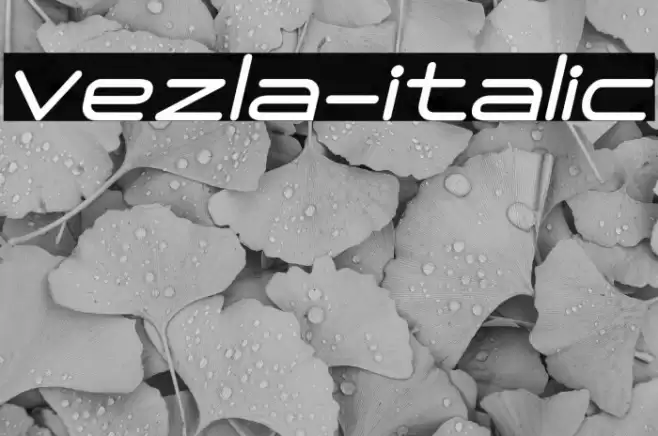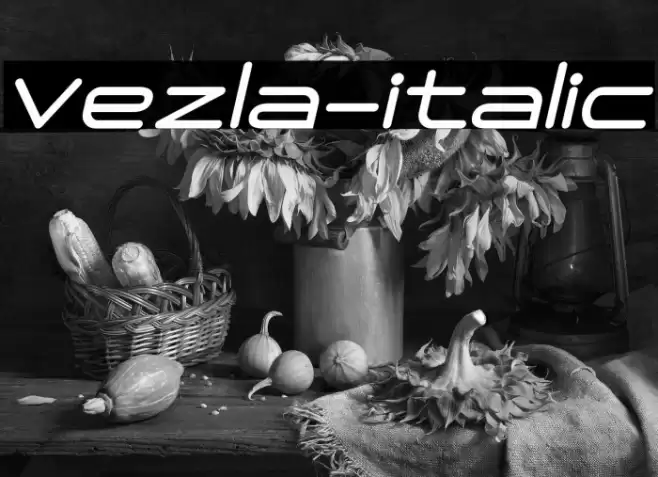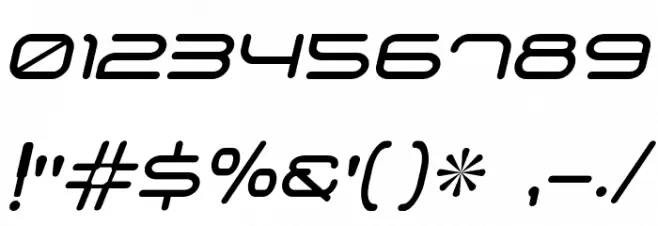
Vezla-italic Font
Vezla-italic Description
This font features a sleek and modern design with a futuristic appeal. The characters are slightly italicized, giving them a dynamic and forward-leaning appearance. Each letter is crafted with smooth, continuous lines that create a sense of motion and fluidity. The font maintains a consistent stroke width throughout, contributing to its clean and streamlined look. The rounded edges and absence of sharp angles add a touch of softness, making it versatile for various design applications. The numerals and special characters are designed to match the overall aesthetic, ensuring uniformity across all text elements.
A sleek, modern italic font with smooth, continuous lines and a futuristic appeal from Uncategorized fonts.
- Proposed Projects: Ideal for tech branding, modern advertising, digital interfaces, and futuristic-themed projects.
- Use Case: Logos, Headlines, Digital interfaces